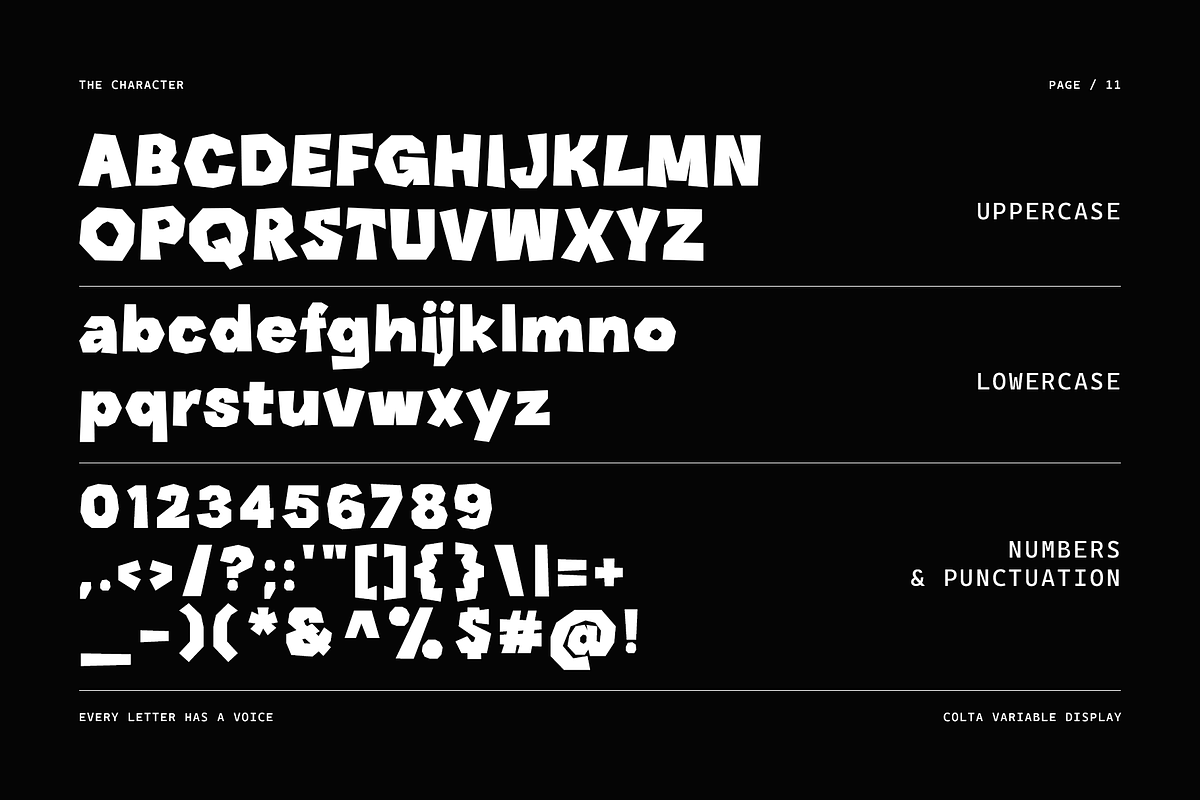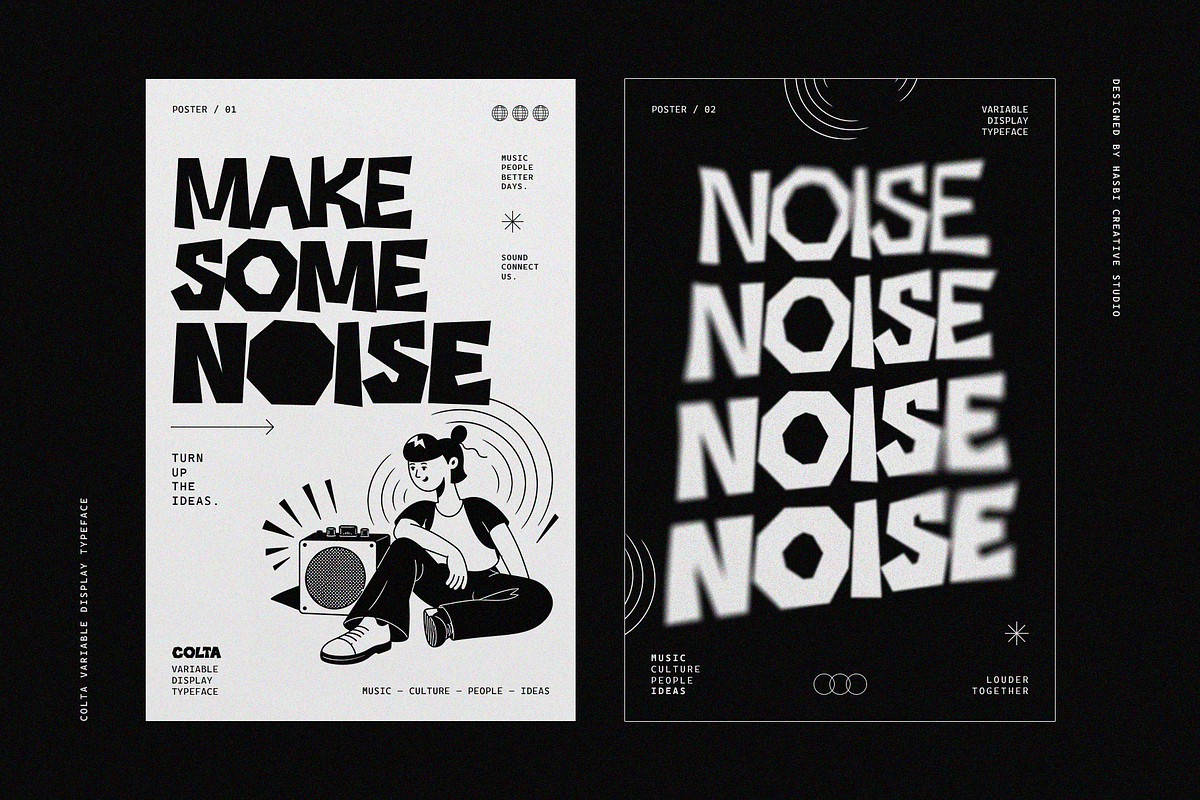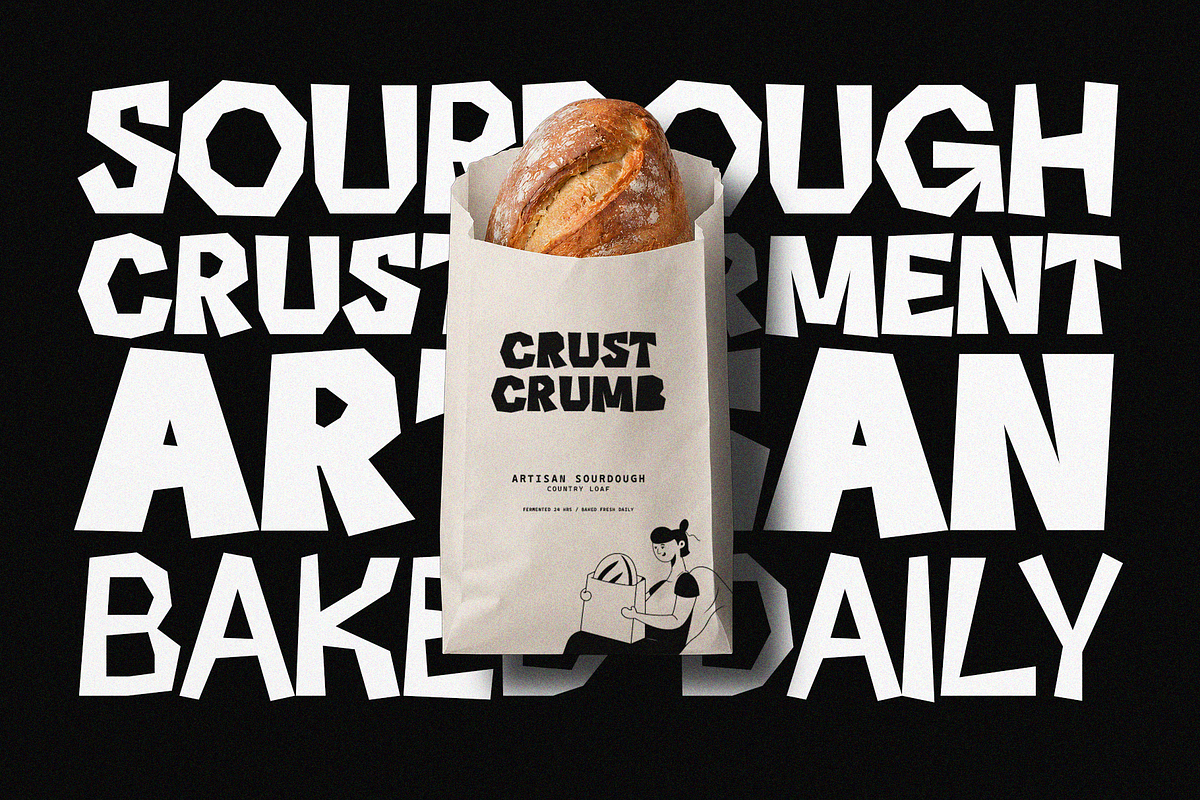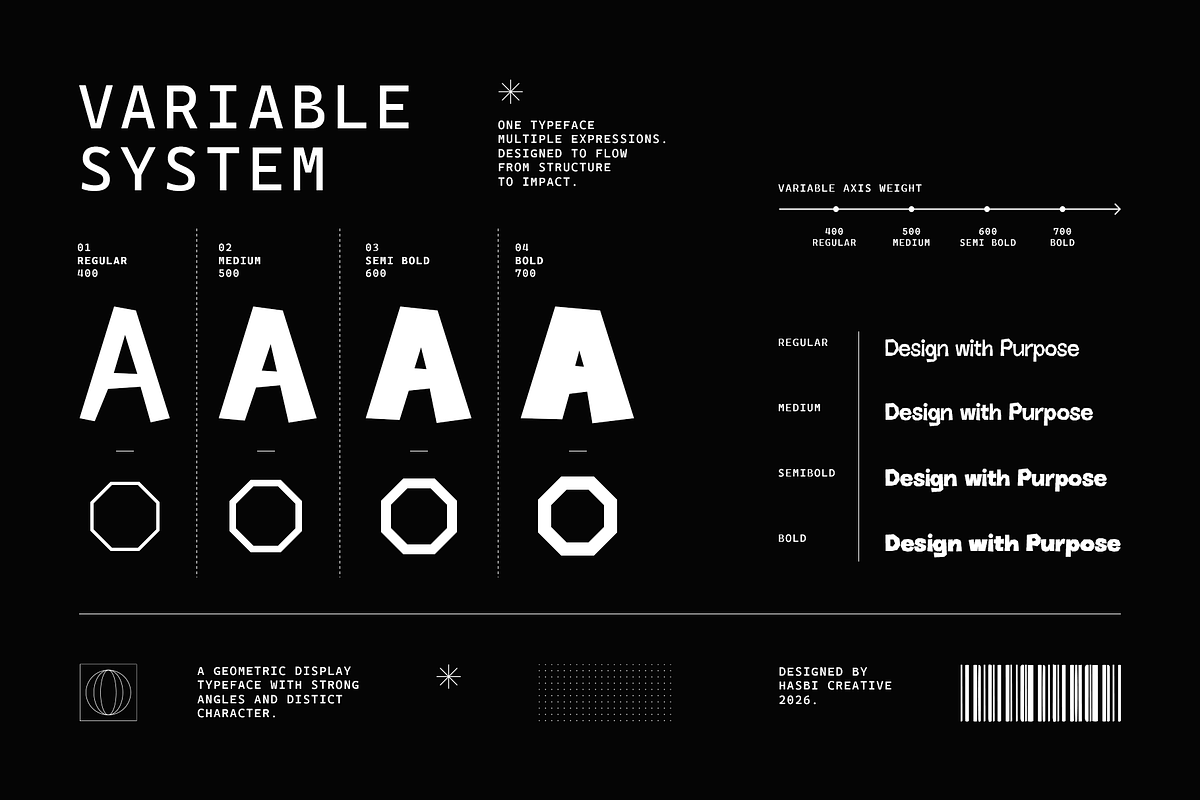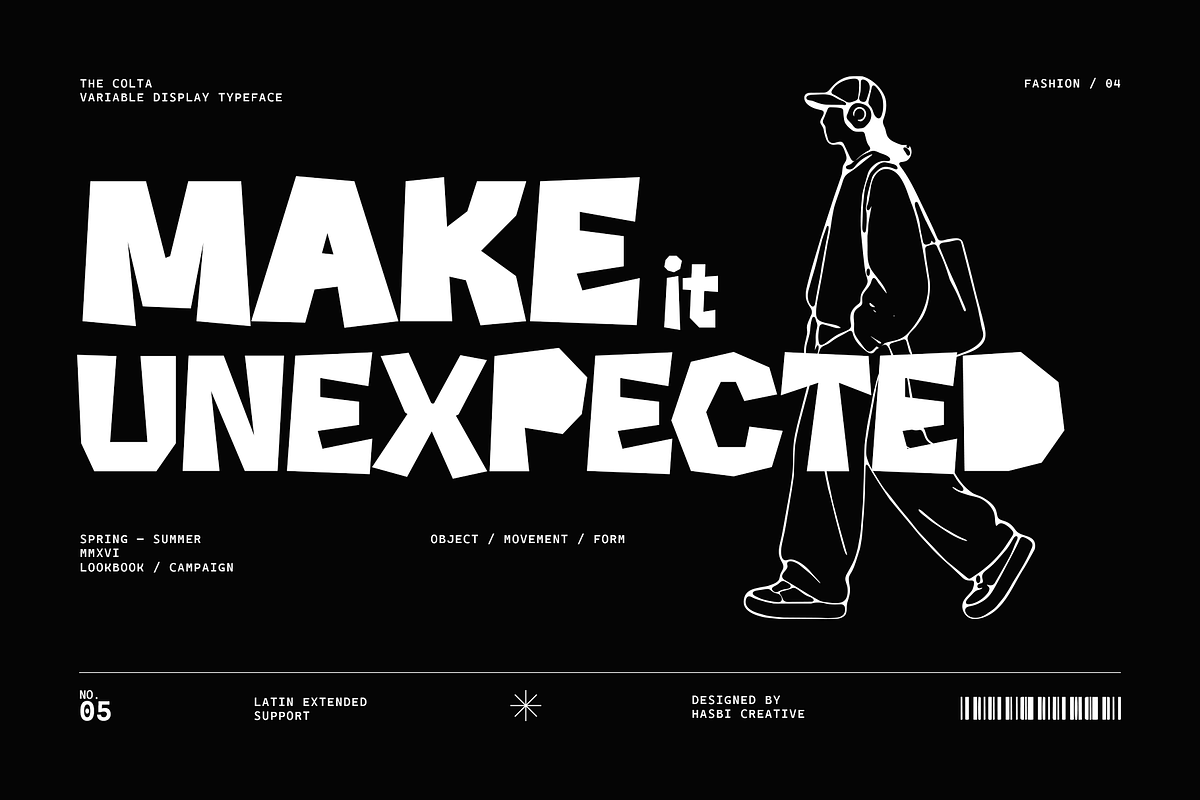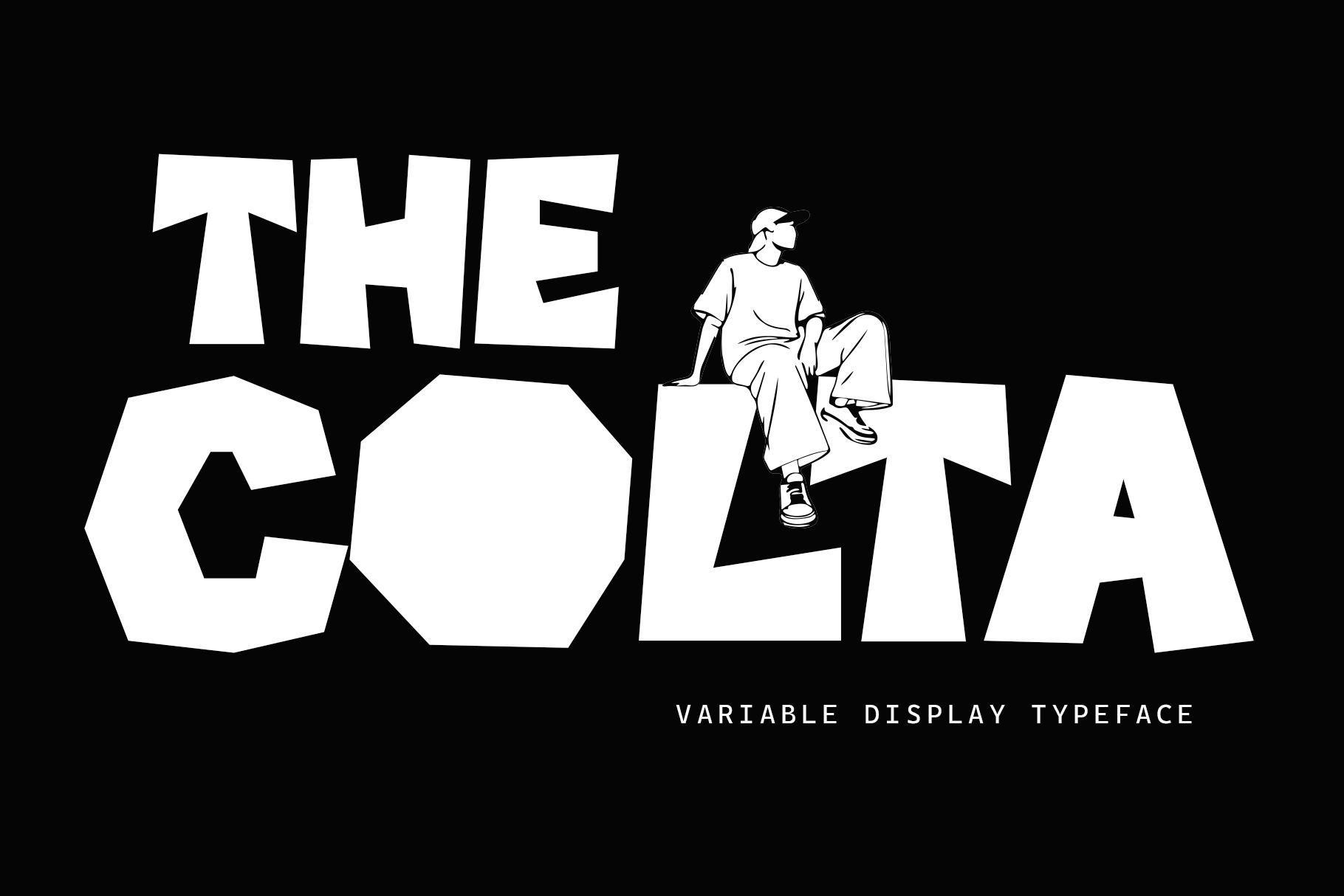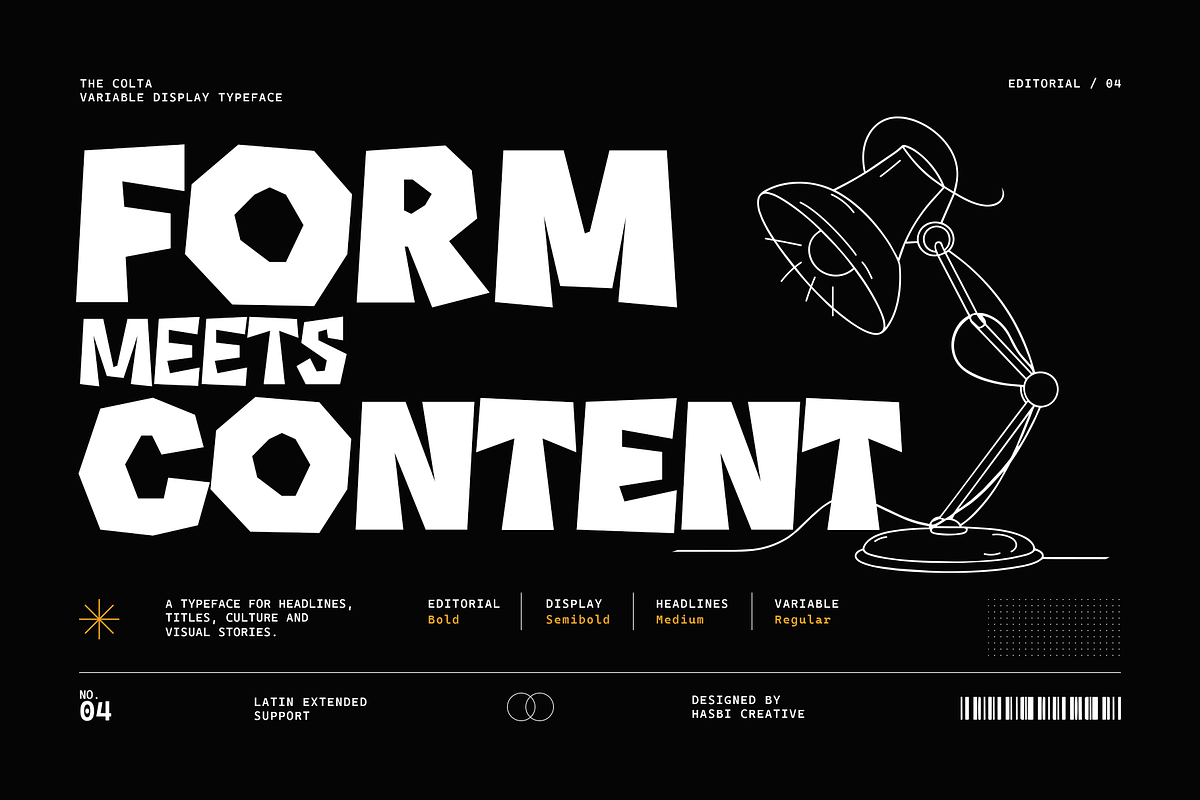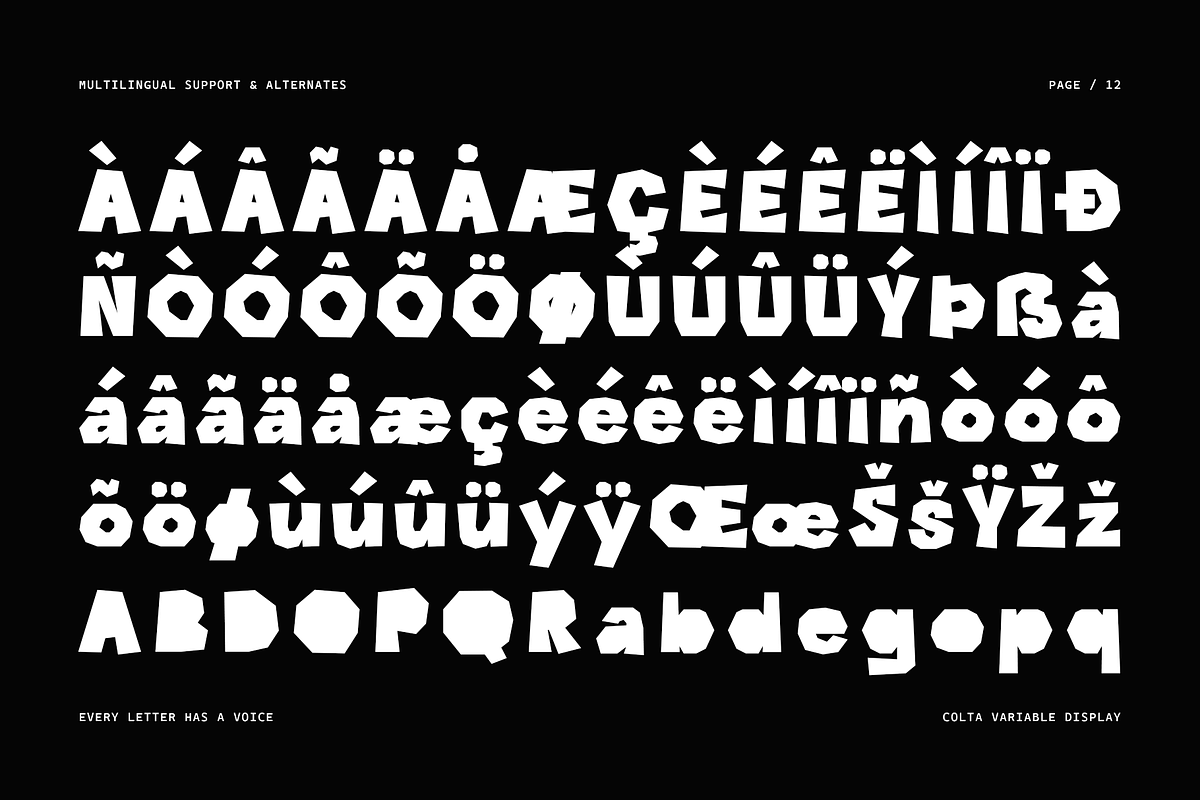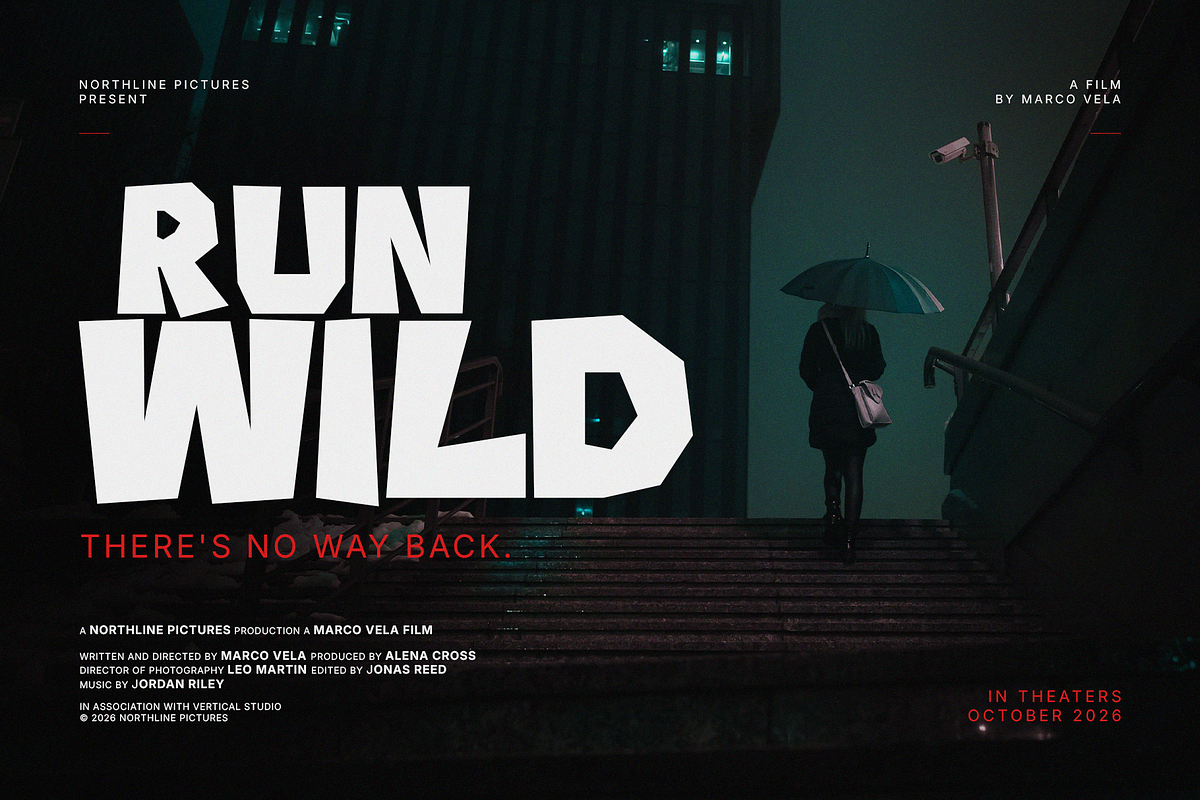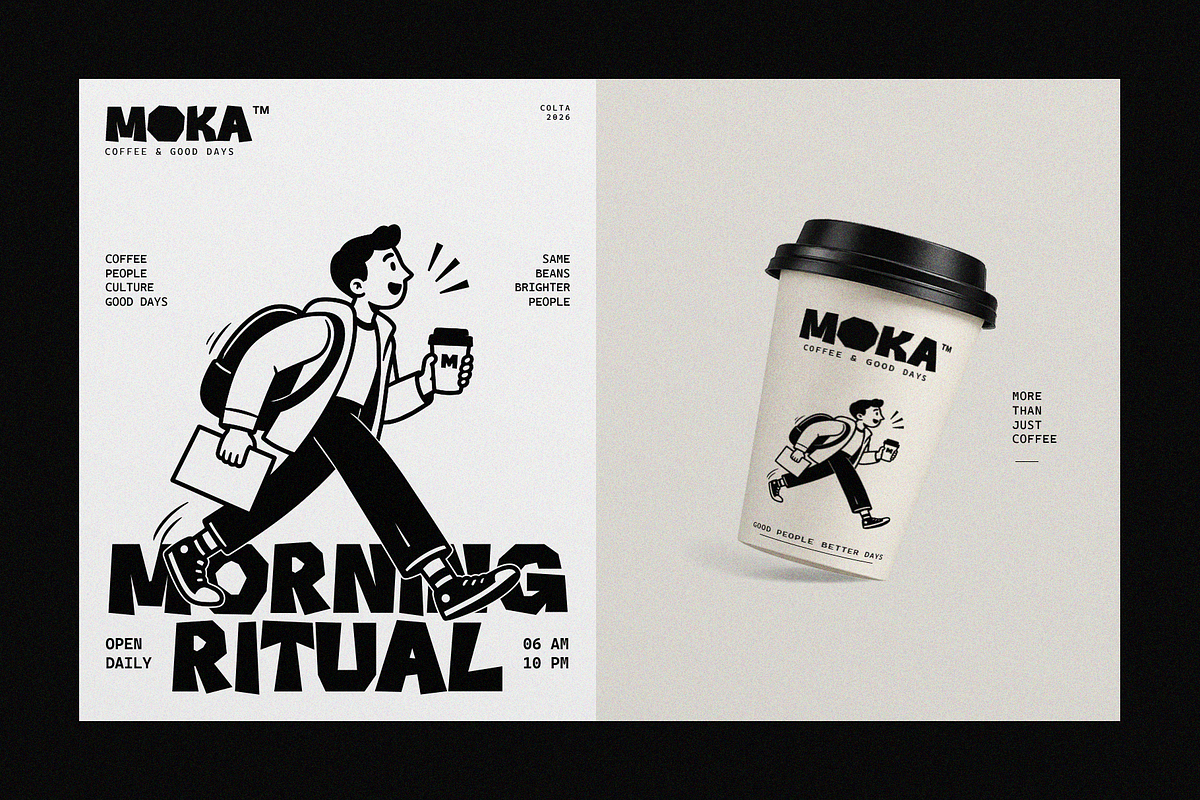
Colta – Variable Display Font
COLTA is an experimental display typeface built from bold geometric forms, angular details, and distinctive proportions. Its strong visual personality makes it especially effective when typography needs to become a central part of the design.
Designed for expressive visual communication, COLTA brings a contemporary and unconventional character to posters, branding, packaging, editorial layouts, fashion graphics, music artwork, movie titles, advertising, signage, and other display-focused projects.
The typeface includes a flexible variable font system with four weights — Regular, Medium, Semibold, and Bold — giving designers greater control over visual density, hierarchy, and typographic impact. From lighter editorial compositions to heavy display statements, COLTA can adapt while maintaining its recognizable character.
Its geometric construction and irregular details create a balance between structure and playfulness, making it suitable for designers looking for something more distinctive than a conventional geometric typeface.
• Variable font system
• 4 weights: Regular, Medium, Semibold, and Bold
• Uppercase and lowercase characters
• Numerals and punctuation
• Extended Latin character support
• Multilingual use
IDEAL FOR
• Posters and key visuals
• Branding and logotypes
• Packaging design
• Editorial design
• Fashion graphics
• Music artwork
• Movie and film titles
• Advertising campaigns
• Headlines and titles
• Signage and environmental graphics
• Creative campaigns
• Contemporary graphic design
DESIGN CHARACTER
COLTA combines geometric structure with angular and unconventional forms to create typography with presence, attitude, and visual character. It is designed for projects where the typeface is not simply supporting the composition, but actively shaping it.